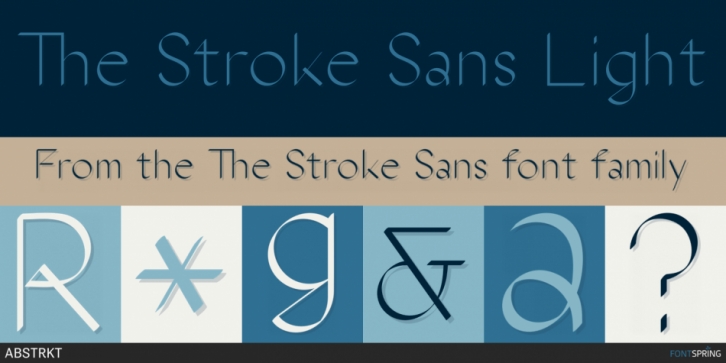
Designed by Roman Gornitsky, The Stroke Sans is a hand drawn font family. This typeface has four styles and was published by ABSTRKT.
The Stroke Sans typeface is based on a broad nib pen theory taken to its extreme, using idealization of computer-generated pen stroke.